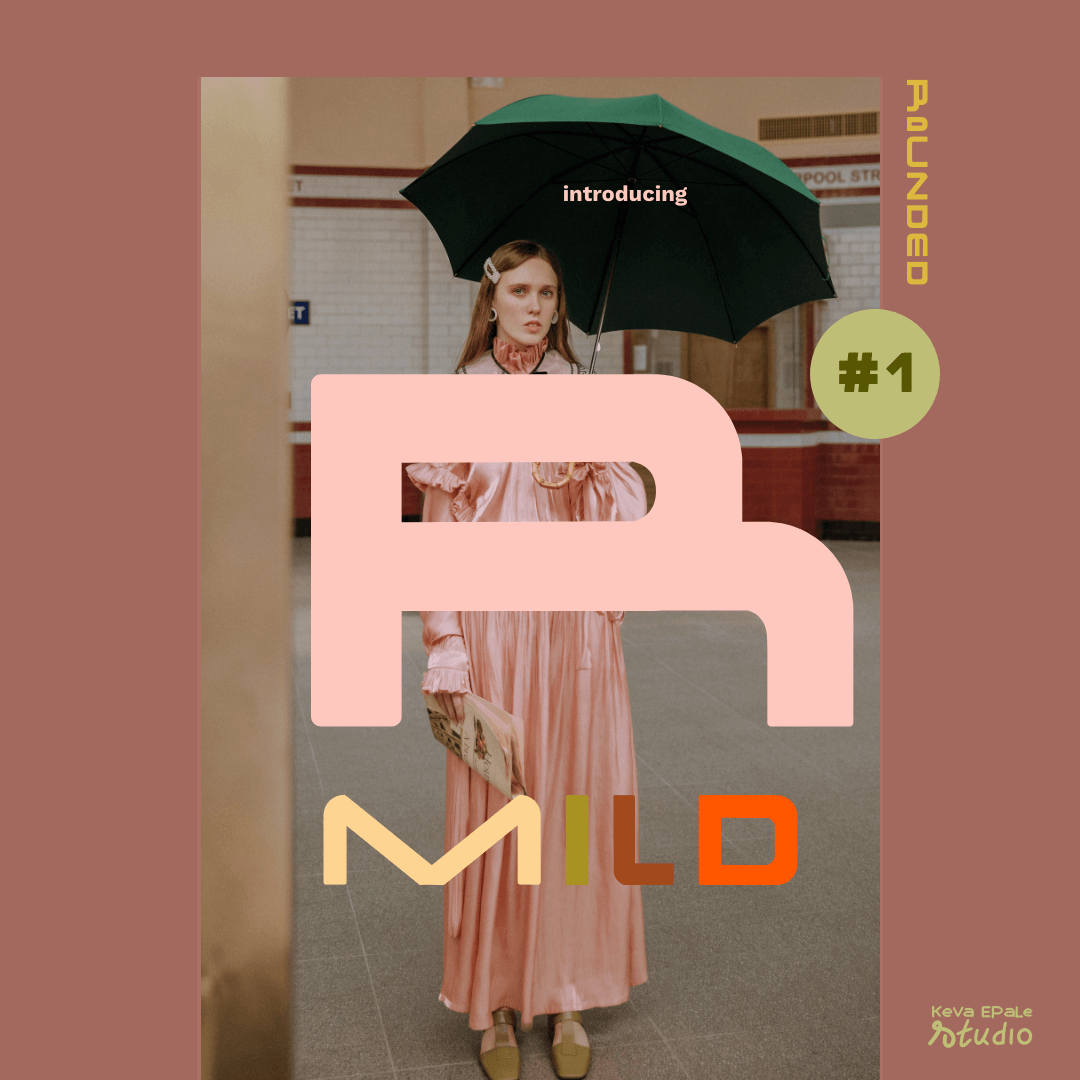
Mild typeface
My first exclusive typeface; ''Mild''. A typeface that contrasts with its name: mild, but playful. A bold, imperfect and empowering typeface. Mild is a typeface with 2 versions, all in upper case: a ''rounded'' version that has softness and space an ''angular'' version with its own edgy rhythm You can purchase on ''You work for them'': https://ywft.us/27021fcf8
Mild typeface by Keva Epale